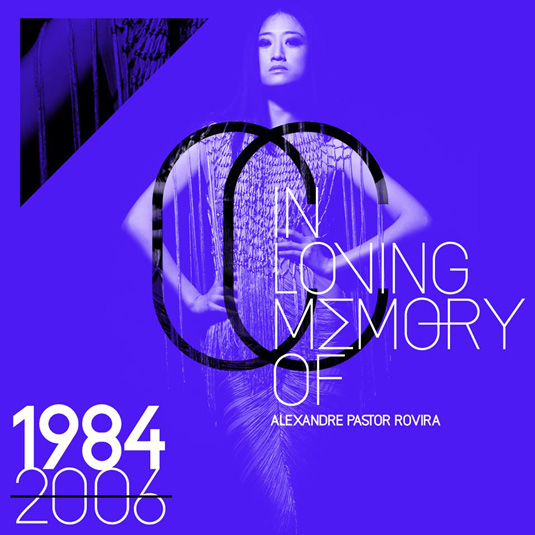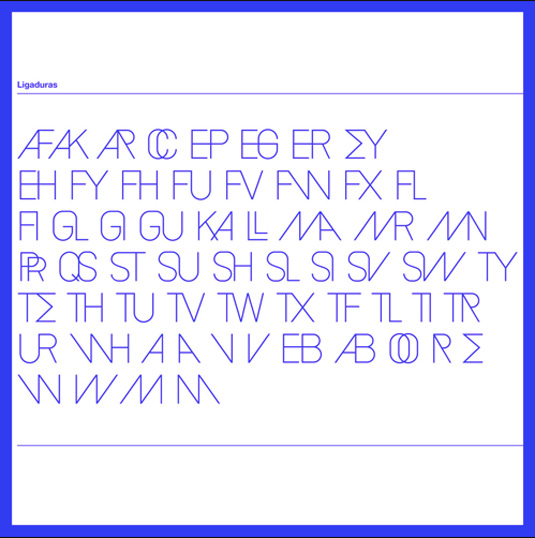
Font of the day: Alexander Grotesk
Alexander Grotesk by Ultra Types
To celebrate reaching 1000 fans on Facebook, Barcelona-based type foundry Ultra Types is offering its font Alexander Grotesk for free. The team describe the design on their website: "Alexander Grotesk is a sans serif typeface that tries to mix the construction of Din typeface with the modern character of Avant Garde gothic."